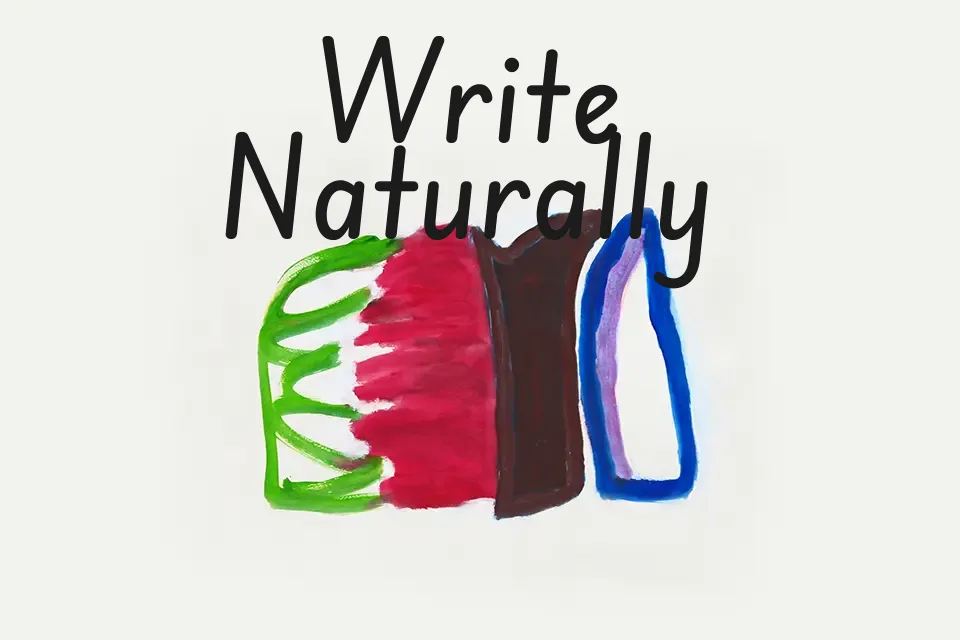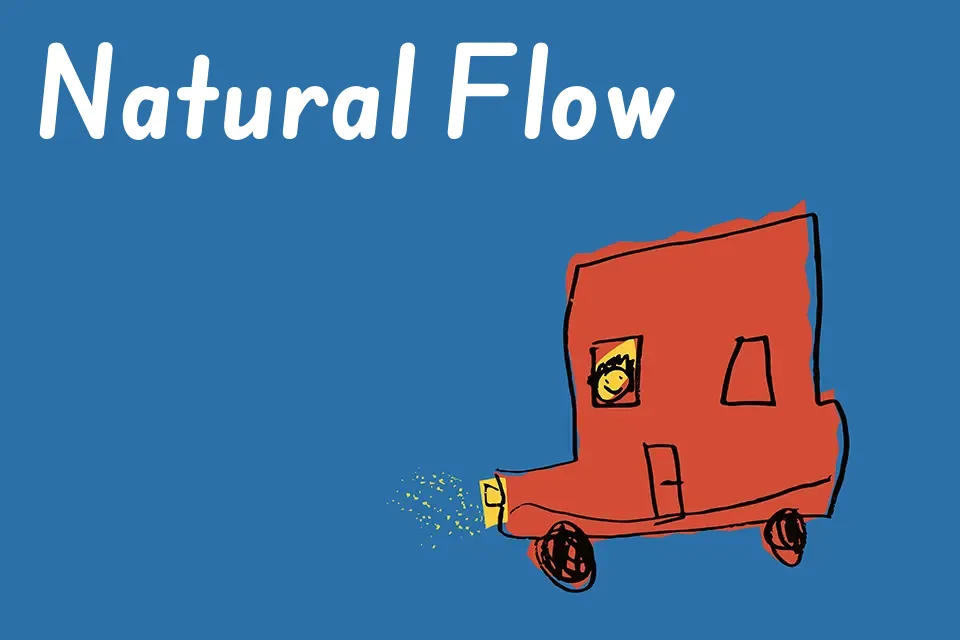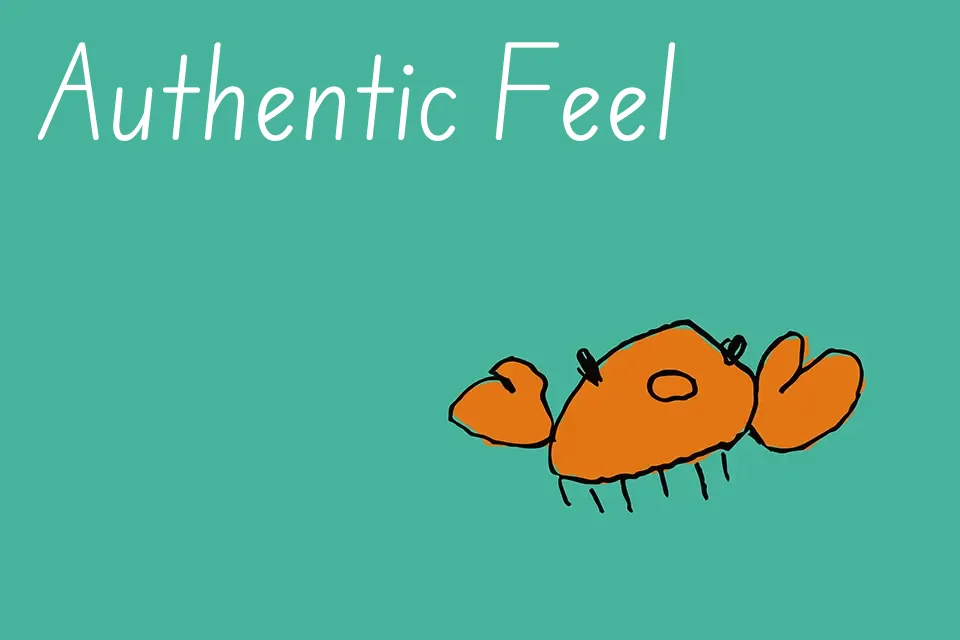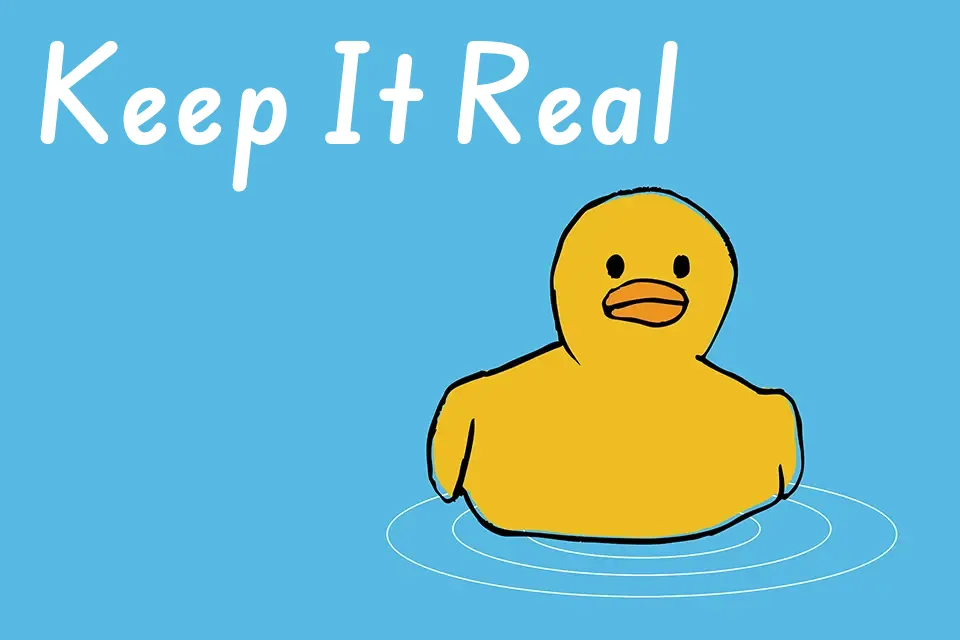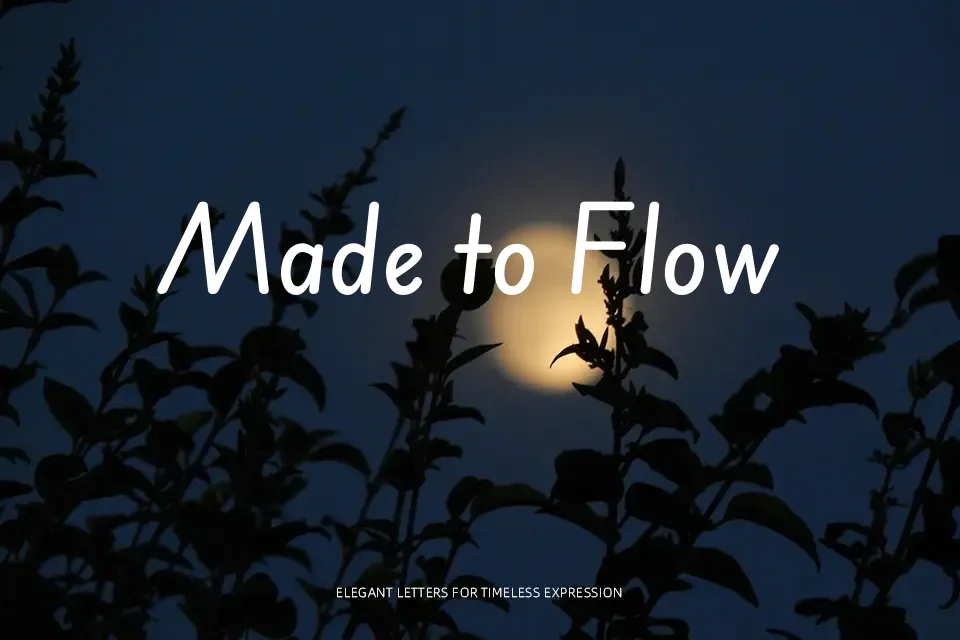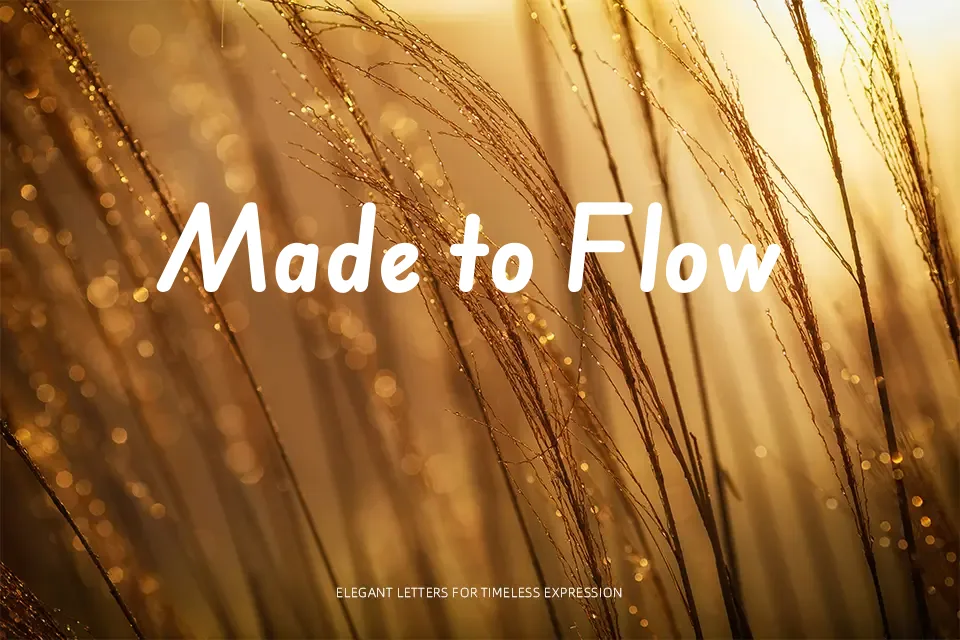
Edu SA Hand Font
Designed by Tina Anderson, Corey Anderson
Edu SA Hand belongs to a family of Australian school handwriting fonts, with simple monoline strokes, moderate contrast, and loosely rounded joins that echo real teacher handwriting. Letterforms stay upright and well-spaced, so lines of text remain readable even at smaller sizes, unlike many decorative scripts that collapse when downsized. The overall impression is casual and instructive rather than stylish or fashion-driven, which makes it handy for classroom resources, handwriting practice sheets, kids’ product labels, and approachable social media posts for schools or tutoring brands. If you need something for dense editorial pages or formal corporate reports, this font can feel too informal and slightly repetitive over long paragraphs, so pairing it with a neutral sans serif for body text usually works better.
handwriting practice worksheets
kids educational posters
school branding and signage
friendly classroom print materials
long-form body text
formal legal or corporate documents
high-end luxury branding
tiny UI labels or dense interfaces